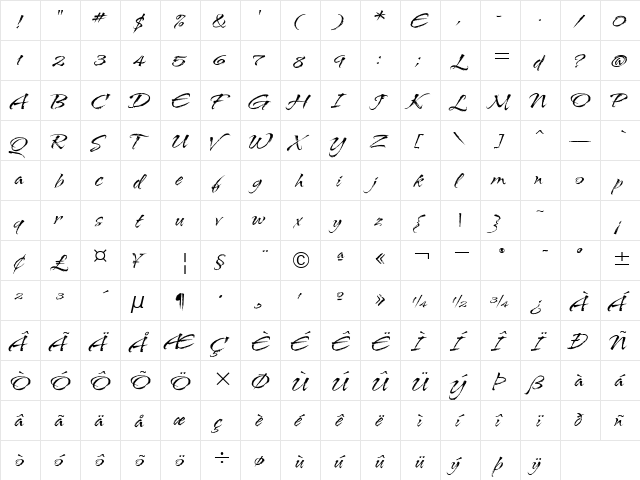
AridITC TT Regular
Design Context for AridITC TT Typeface
AridITC TT is a composed and adaptable typeface that performs quietly and consistently across a wide range of design contexts.